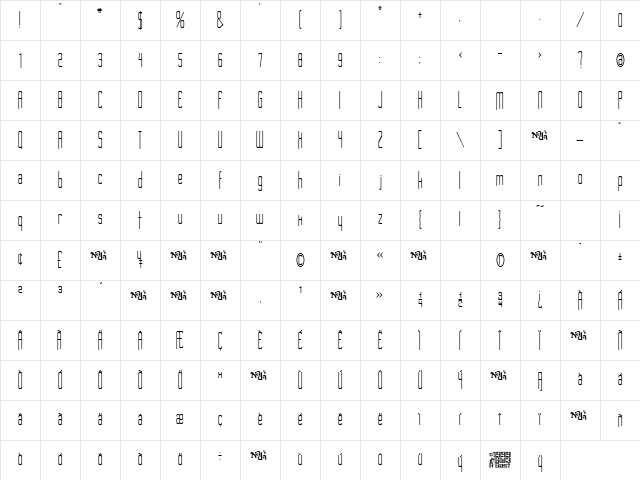
Long Cool Woman Regular Free Font
Long Cool Woman Regular
Design Context for Long Cool Woman
Long Cool Woman is a composed and adaptable typeface that performs quietly and consistently across a wide range of design contexts.
Pro Tip: Use Long Cool Woman in both headline and body roles to test its range before committing to a single application.